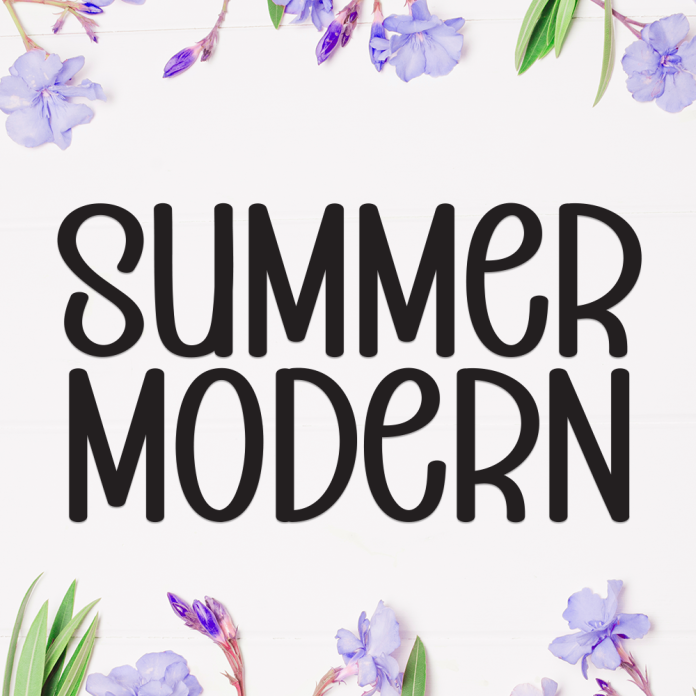
Summer Modern is a sleek and stylish display font that blends the freshness of summer with a touch of modern elegance. With clean lines, minimalistic curves, and a trendy aesthetic, this font is perfect for giving your designs a vibrant and contemporary look.
Ideal for fashion branding, beach event posters, social media graphics, packaging, or travel-themed promotions, Summer Modern brings a warm and stylish breeze to any layout.
Clean and modern display type
Summer-inspired with a fashionable twist
Bold and readable for titles and headlines
Includes uppercase, lowercase, numerals & punctuation
Make your designs shine with the fresh, contemporary feel of Summer Modern.